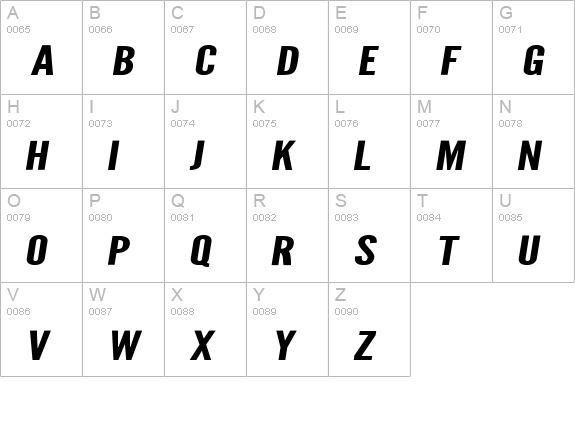
Warsaw Gothic SuperExtended Oblique is a distinctive, italic variant in the Warsaw typeface family \xE2\x80\x94 well suited to design and typography projects.
Introducing the captivating and edgy Warsaw Gothic SuperExtended Oblique font, a true masterpiece in the realm of typography. This font is a perfect fusion of Gothic influences and modern design, resulting in a unique and striking typeface that will leave a lasting impression. With its elongated and slanted letterforms, Warsaw Gothic SuperExtended Oblique exudes a sense of energy and dynamism, making it the ideal choice for projects that require a bold and daring aesthetic. Its sharp corners and distinctive angles add an extra layer of intensity, allowing this font to stand out in any composition. But what truly sets Warsaw Gothic SuperExtended Oblique apart is its versatility. Whether used for branding, editorial design, poster art, or web design, this font seamlessly adapts to any creative vision. It effortlessly conveys a sense of sophistication and modernity, making it suitable for both contemporary and classic design styles. And the best part? Warsaw Gothic SuperExtended Oblique is freely available to download at FontsMarket.com. This means that designers and creatives around the world can access this exceptional font without any cost, allowing for unlimited possibilities in their projects. Its availability ensures that this font can be enjoyed by anyone who seeks to elevate their designs with its unique and captivating aesthetic. So, don't miss out on the opportunity to add this remarkable font to your collection. Download Warsaw Gothic SuperExtended Oblique today from FontsMarket.com and unlock a world of creativity, where boundaries are pushed and design possibilities are limitless. Get ready to make a lasting impression with this captivating and freely accessible typeface.